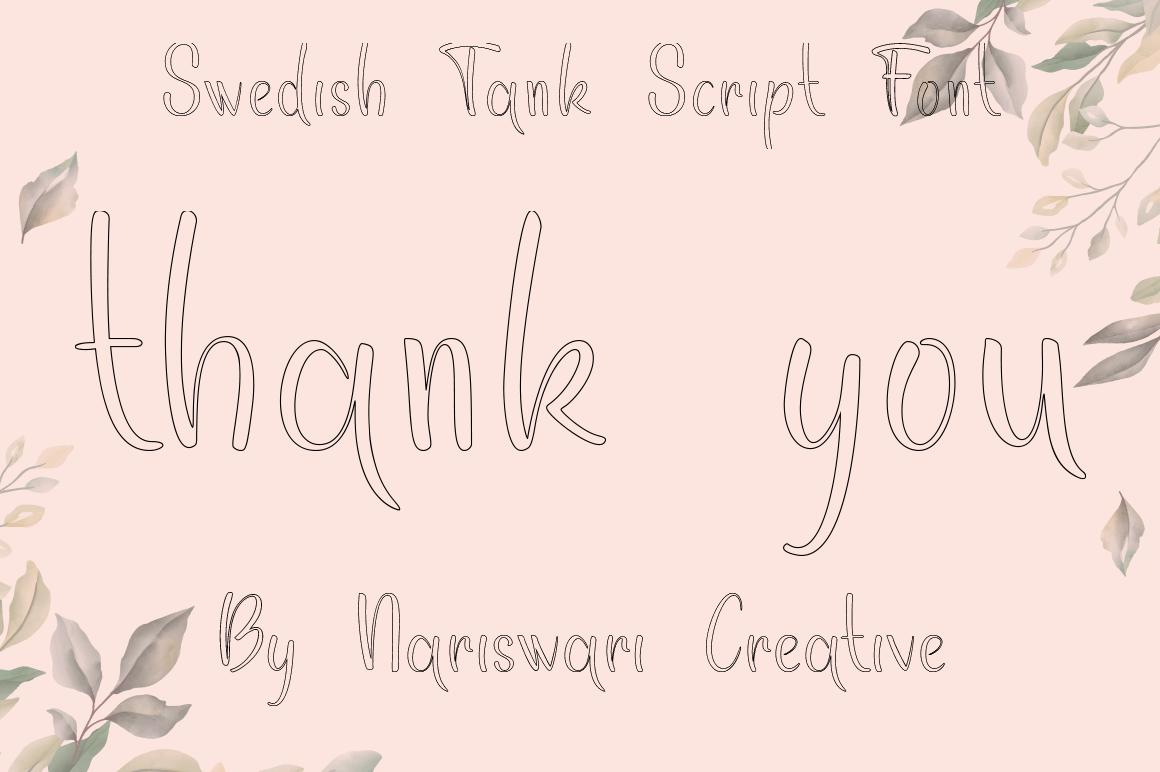
Swedish Tank Font Description
Swedish Tank is a delicate, elegant and flowing handwritten font. It has beautiful and well balanced characters and as a result, it matches a wide pool of designs. Add it to your most creative ideas and notice how it makes them come alive!